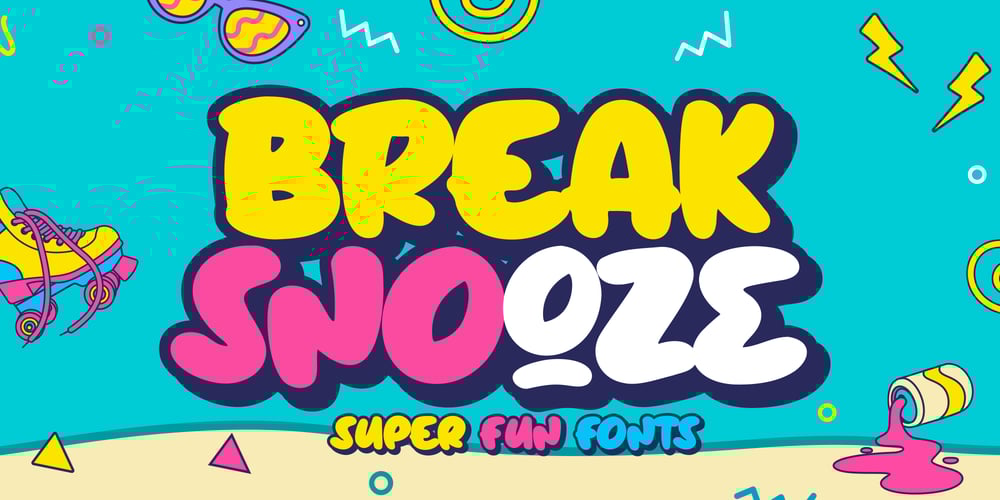
Break Snooze Font Family was designed by Stefie Justprince and published by Crumphand. Break Snooze contains 3 styles and family package options. Introducing, Break Snooze fonts.Break Snooze have a unique shape, rounded and fun.Comes with 3 style Regular, Outline and Extrude,then can mix and match with Stylistic Set.What’s Included Inside The Fonts ? Uppercase Lowercase Symbols Numerals Stylistic Set 1 Stylistic Set 2 European Multilingual Thank you, Regards!